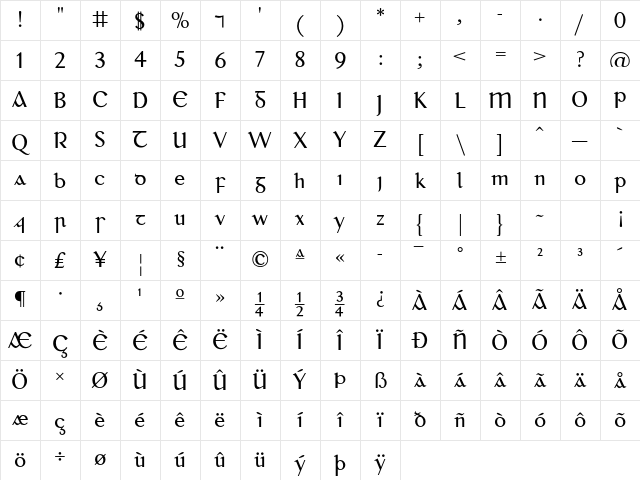
Gadelica Book
Design Context for Gadelica
Gadelica is a composed and adaptable typeface that performs quietly and consistently across a wide range of design contexts.